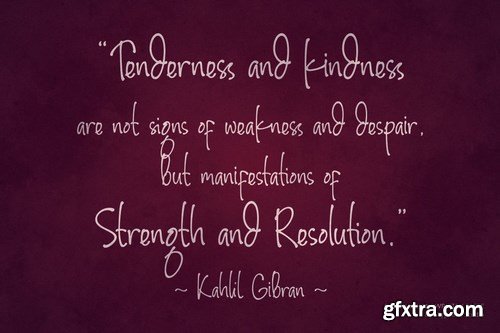
Olliegladies, Chic handwritten Typeface, Take home Olliegldies now and add this stunning, chic signature typeface font to your typeface toolbox. for those of you who crave a beautiful handwritten style, initials, logo, and various of your design needs.